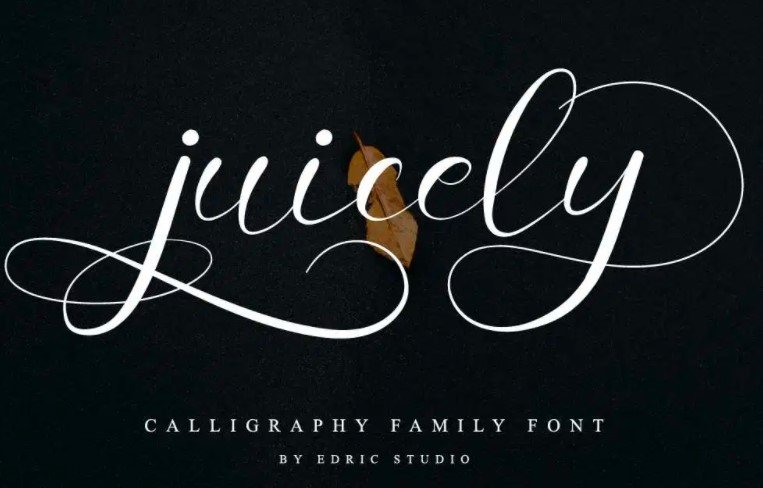
Hi designers if you want to make and create pixel-perfect designs then you must have to utilize Juicely Calligraphy Font which is the original handy typeface that comes with a unique look that was loved by many graphic designers.
The typeface comes along with more than 236 glyphs which include punctuation, characters, that has upper and lowercase designs. You can download it for free to use for all commercial projects.
View Of Juicely Font
This is an amazing typeface that comes with a natural handwritten appearance which looks cool for all types of awesome works. It is one of the most suitable typefaces for visiting cards. Also, it can be used as pairing with trueno sans font.
There are many graphic designers that are curious to know about where the typeface that is perfect to use with apple chancery font and works great, so here we are recommending some great stuff that you can develop easily. You can design all kinds of advertising works, covers, banners, embroidery stuff and other cartoonist designs can build easily.